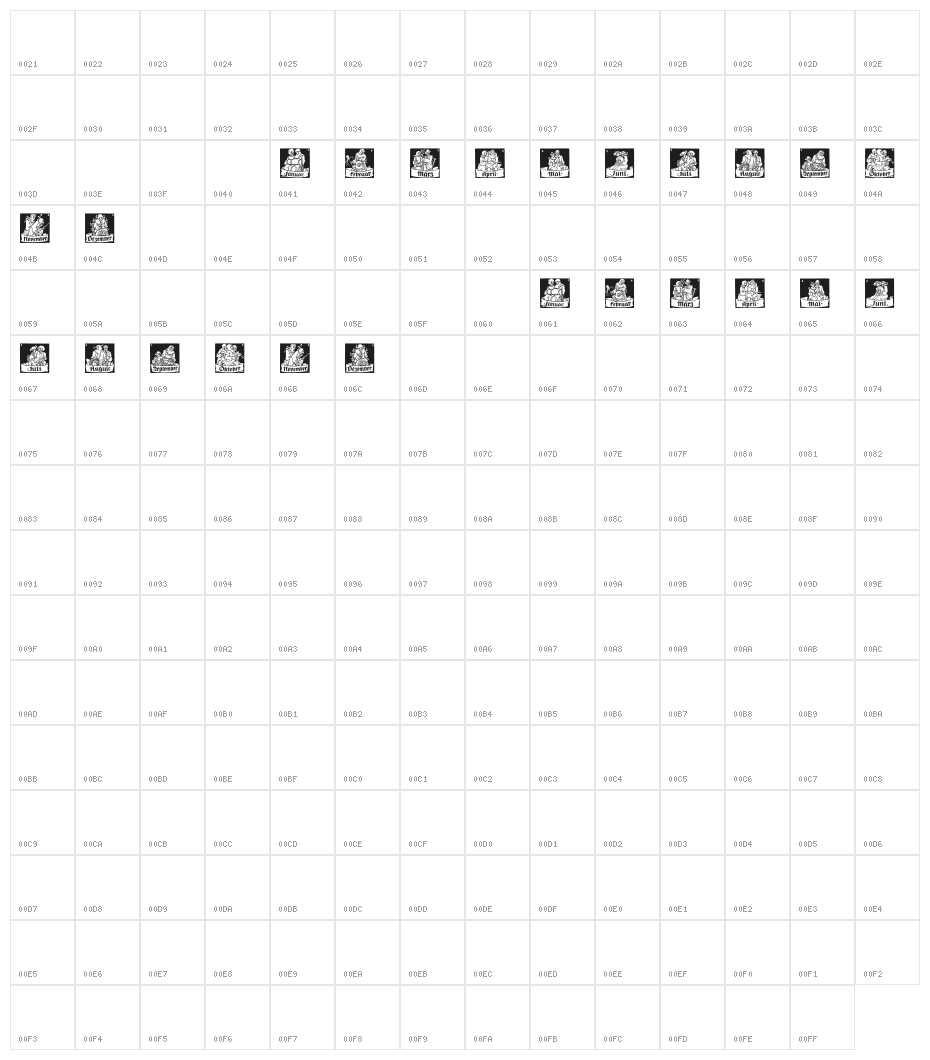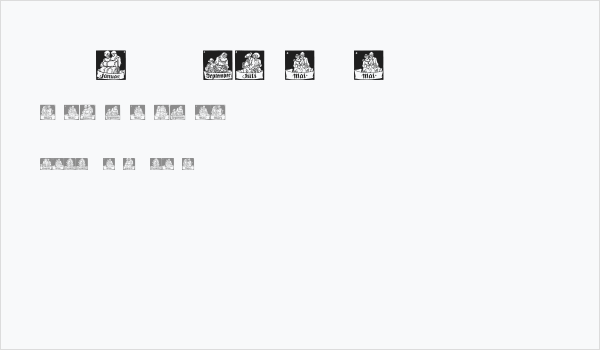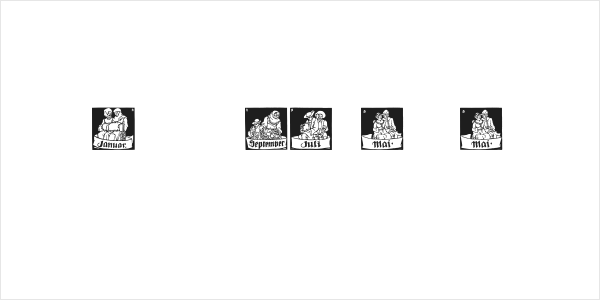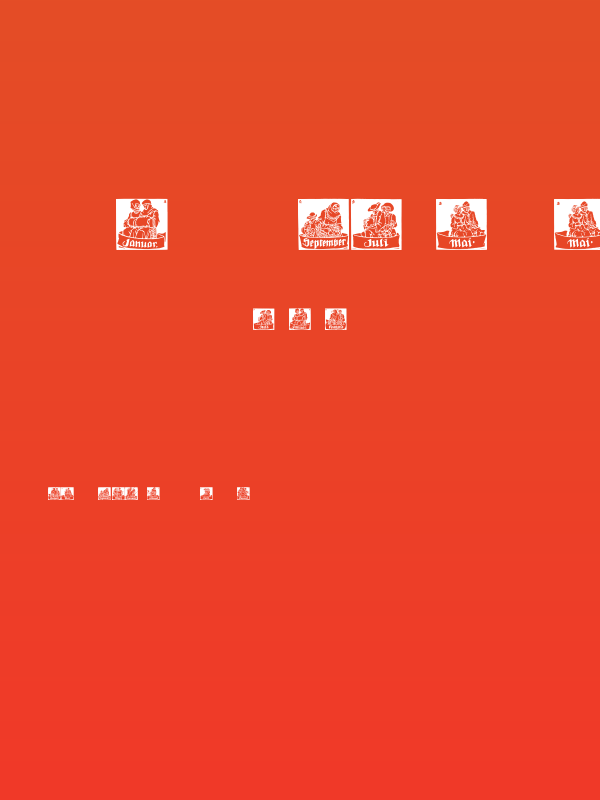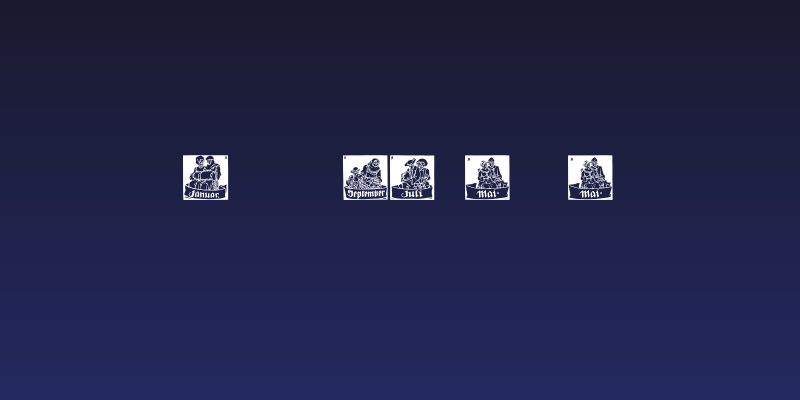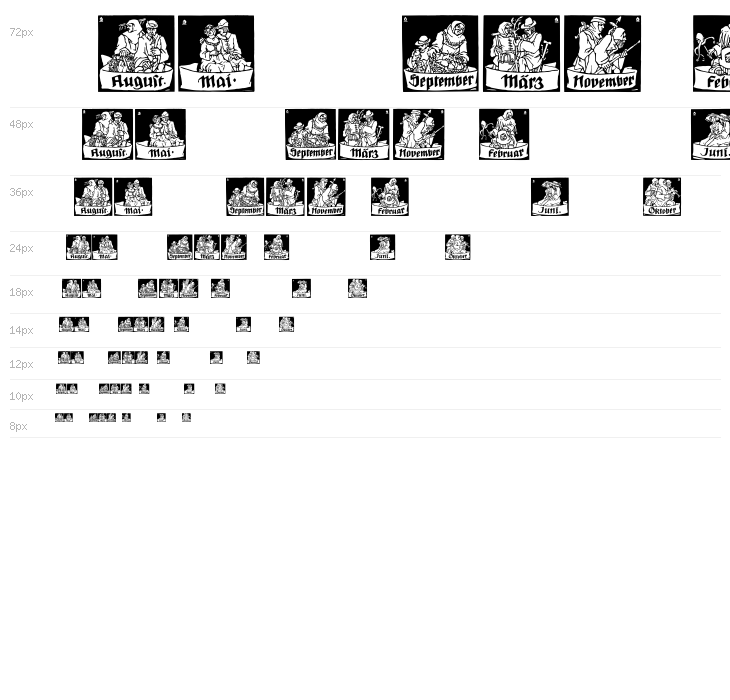
Monats-Vignetten 1 Font
Monats-Vignetten 1 Description
This is not a valid font. The image contains decorative illustrations representing the months of the year, each accompanied by a stylized depiction of activities or themes associated with that month. The text is integrated into the illustrations, making it more of an artistic representation rather than a functional typeface. Each month is presented in a blackletter style, which is ornate and traditional, often used in historical or medieval contexts.
| Use Case | Decorative elements, Artistic projects |
| Proposed Projects | This style is suitable for decorative calendars, historical-themed publications, or artistic projects that require a vintage or medieval aesthetic. |